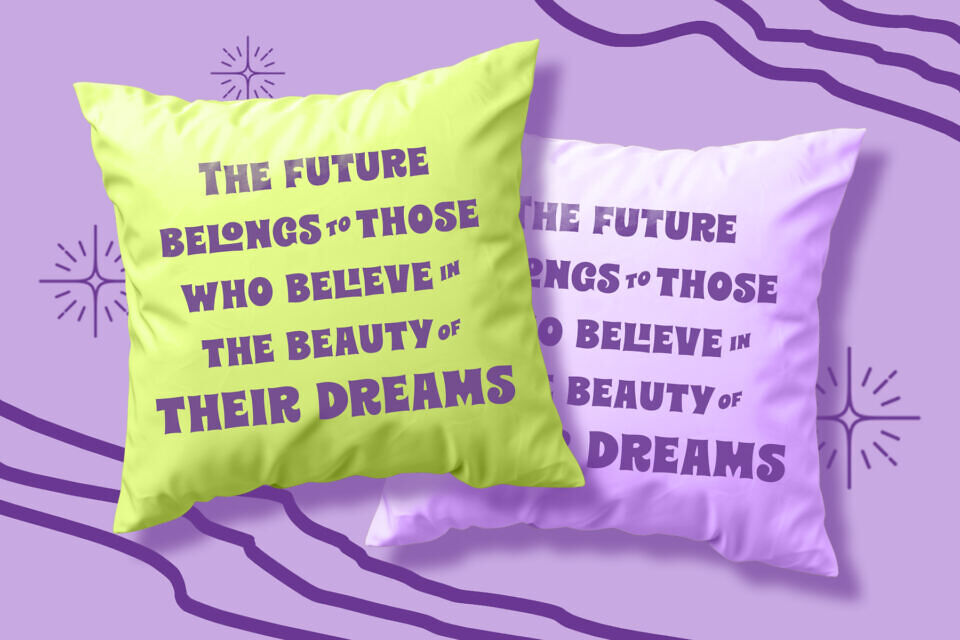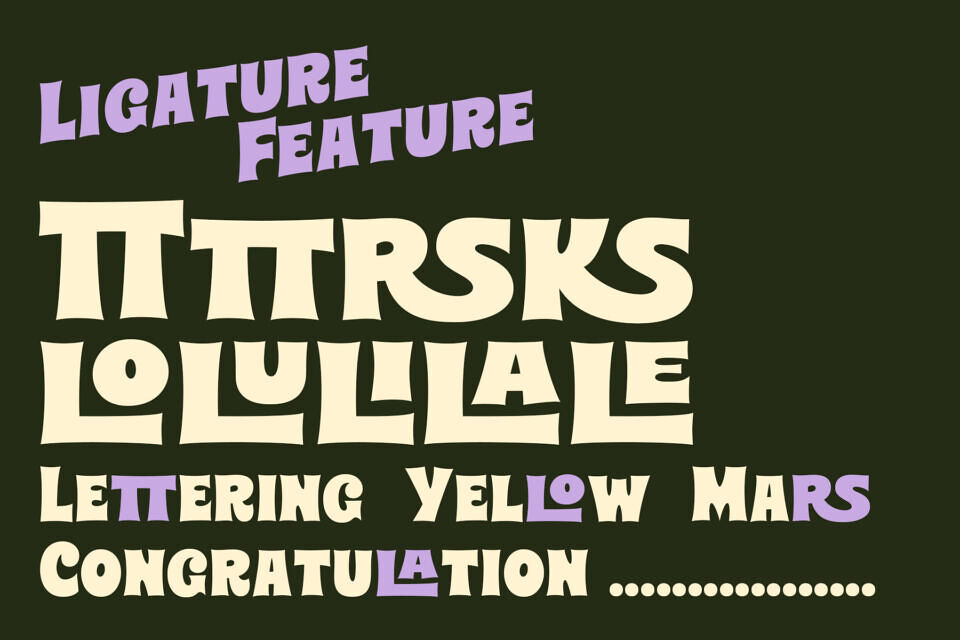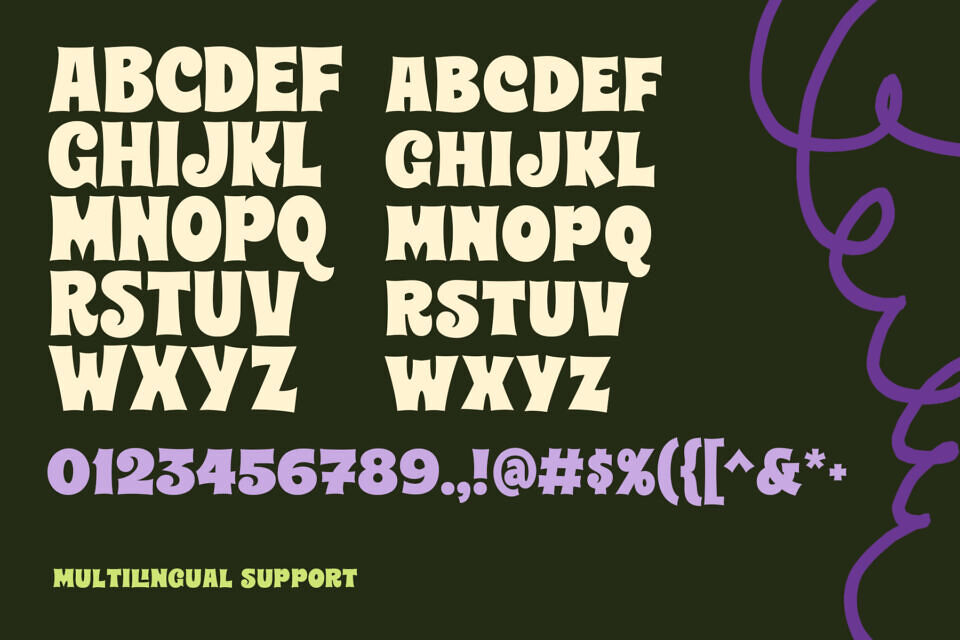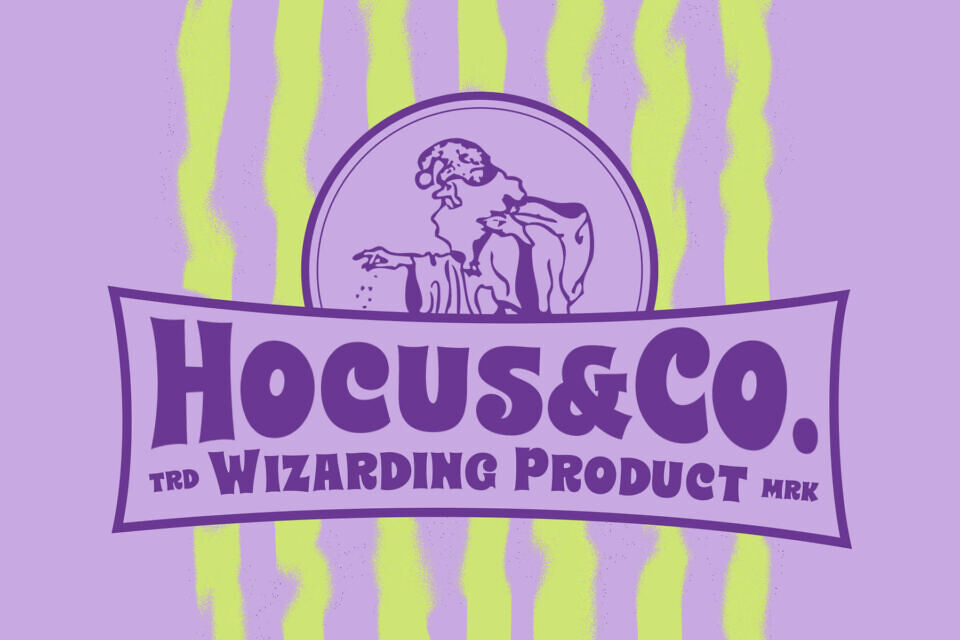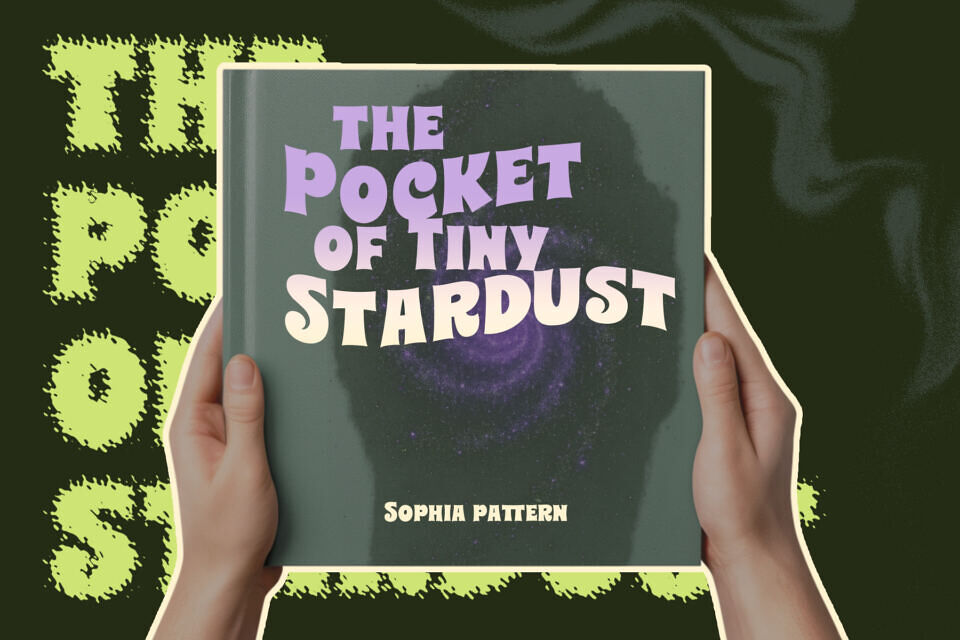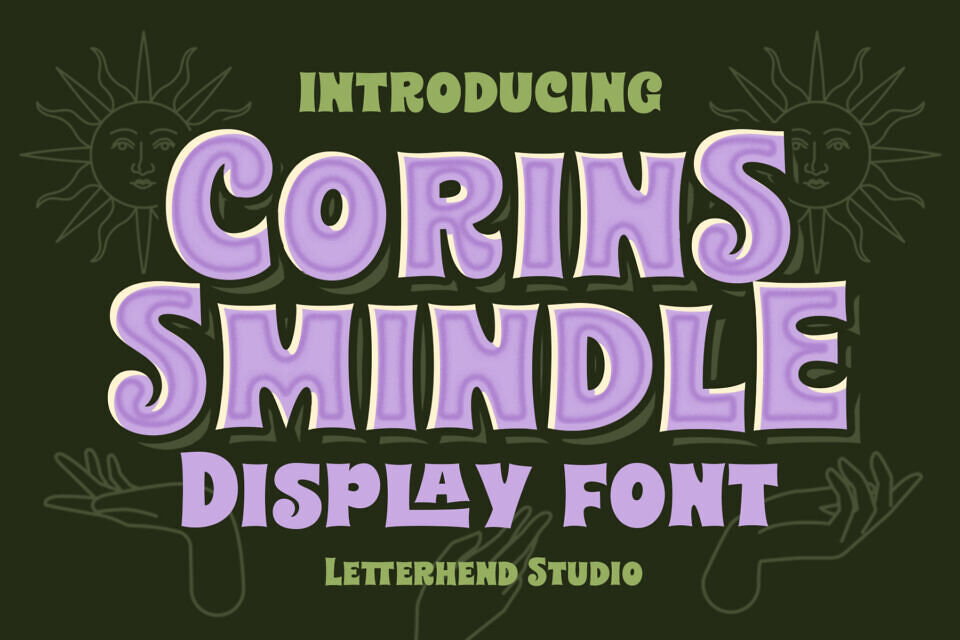
Corins Smindle Font
Corins Smindle is a groovy, mystical display font with chunky retro curves and a soft, hand-drawn charm that feels straight out of a 70s psychedelic poster. Its thick, rounded forms paired with subtle inner shading give each letter a dreamy, magical glow, perfect for designs that want playful energy with a hint of witchy whimsy.